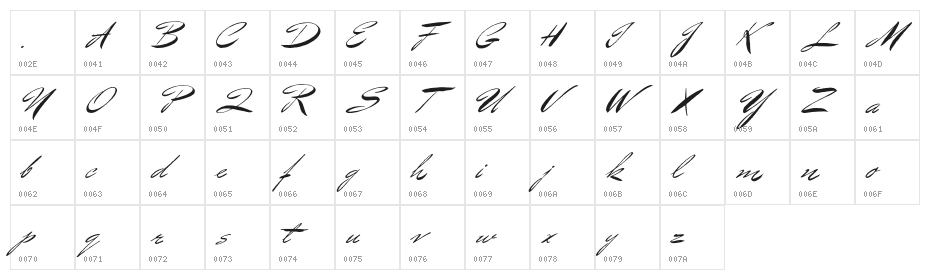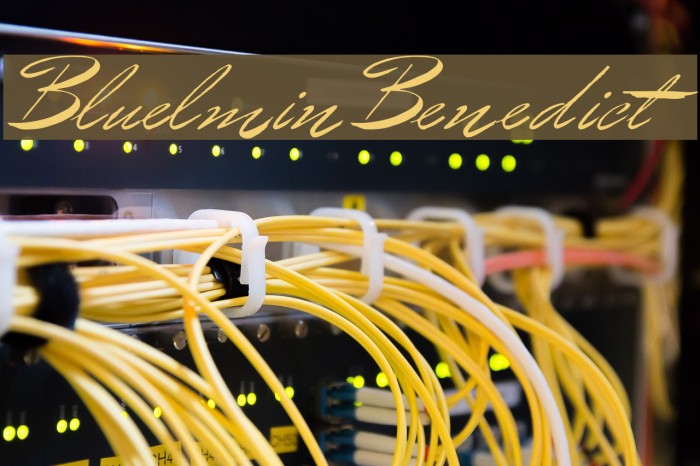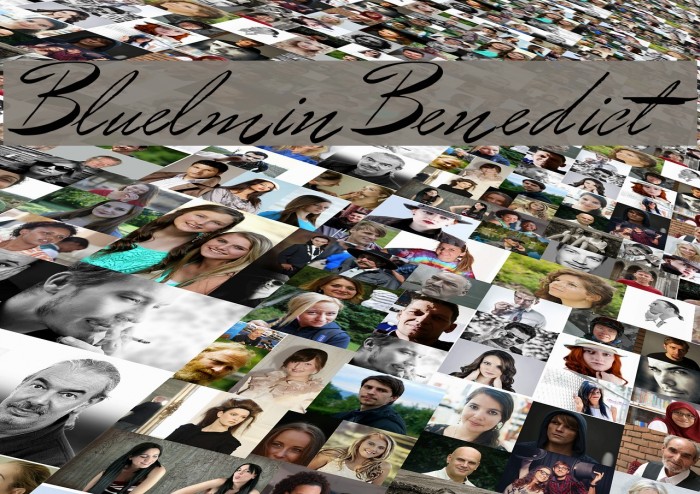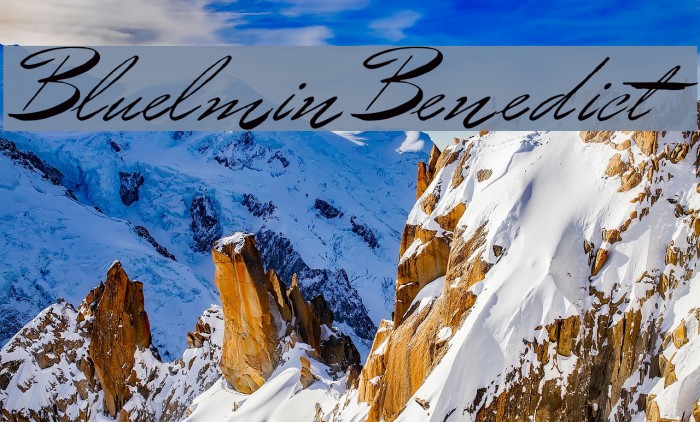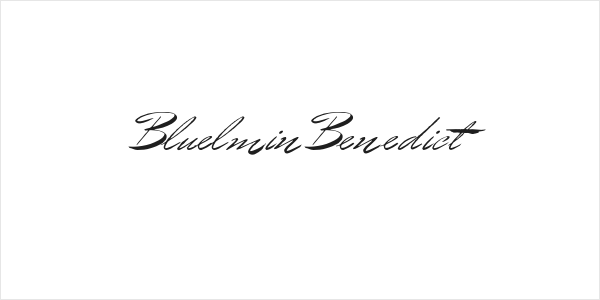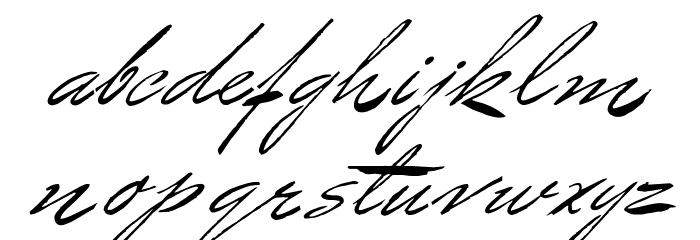
BluelminBenedict Font
BluelminBenedict Description
This font exudes a dynamic and expressive style, characterized by its fluid, cursive script that mimics the elegance of handwritten calligraphy. The strokes are bold and sweeping, with a high contrast between thick and thin lines, giving it a dramatic flair. The letters are slightly slanted, enhancing the sense of motion and grace. The uppercase letters are particularly ornate, with intricate loops and flourishes, while the lowercase letters maintain a more subdued yet still stylish appearance. This font captures a sense of sophistication and artistry, making it ideal for projects that require a personal and creative touch.
| Proposed Projects | Ideal for wedding invitations, elegant branding, artistic posters, and personal stationery. |